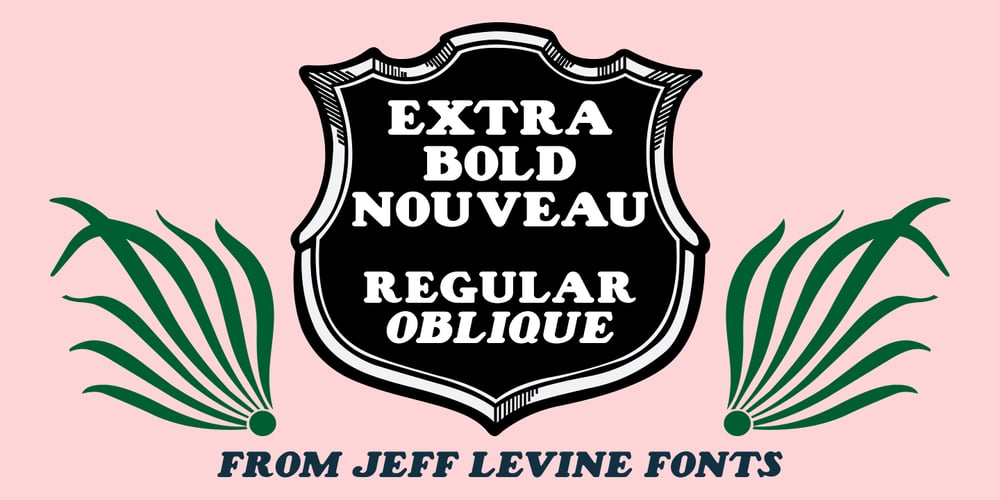
Extra Bold Nouveau JNL Font Family was designed by Jeff Levine and published by Jeff Levine. Extra Bold Nouveau JNL contains 2 styles and family package options. In the 1924 book “Alphabets & Letters” by Harry W. Jacobs (for Milton Bradley), you will find a big, friendly, extra bold typeface with rounded serifs that’s reminiscent of Cooper Black, yet has its own distinct style.This design has been recreated digitally as Extra Bold Nouveau JNL, and is available in both regular and oblique versions.